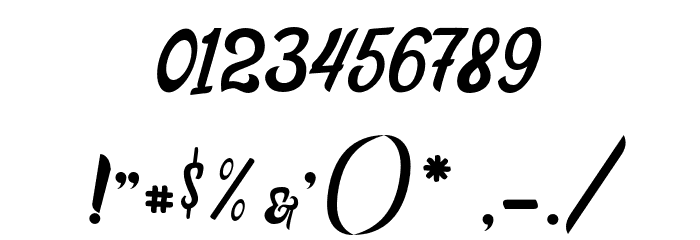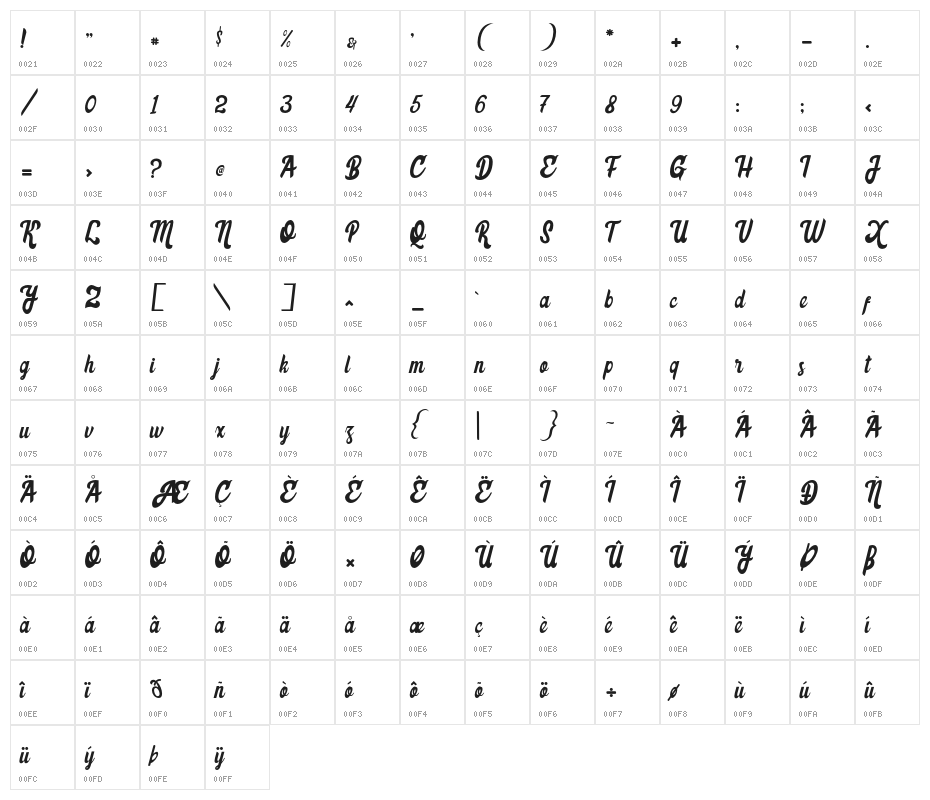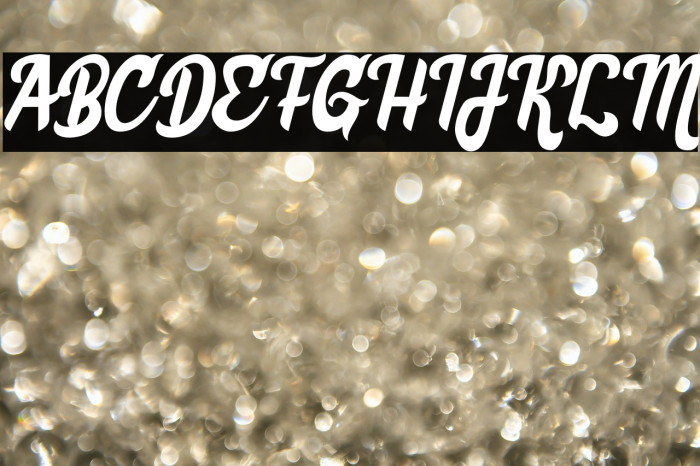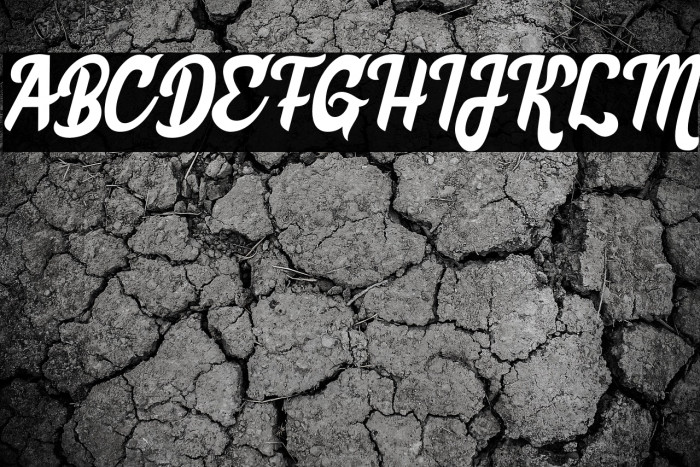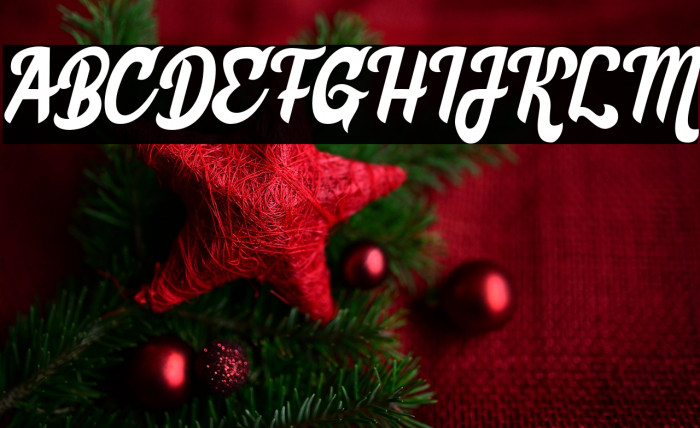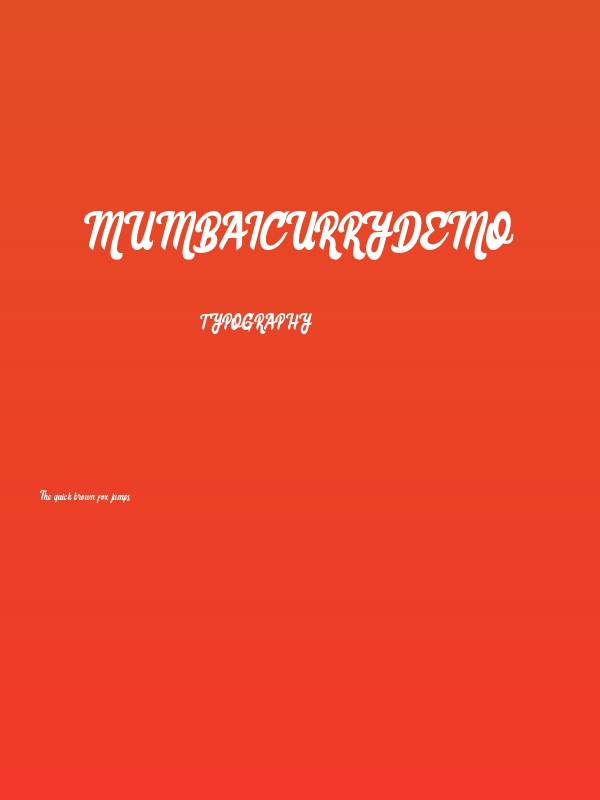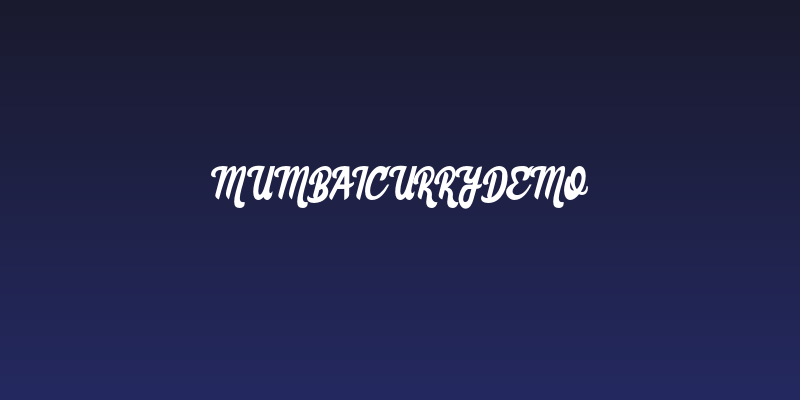
MumbaiCurryDemo Font
MumbaiCurryDemo Description
This font features a bold and dynamic script style with a flowing, cursive appearance. The uppercase letters are characterized by their sweeping curves and elegant loops, giving a sense of movement and flair. The lowercase letters maintain a consistent style, with smooth connections between characters, enhancing readability while retaining an artistic touch. The numerals are bold and clear, matching the overall aesthetic of the font. Special characters are designed with the same attention to detail, ensuring they integrate seamlessly with the rest of the character set. This font's design is both expressive and versatile, making it suitable for a variety of creative applications.